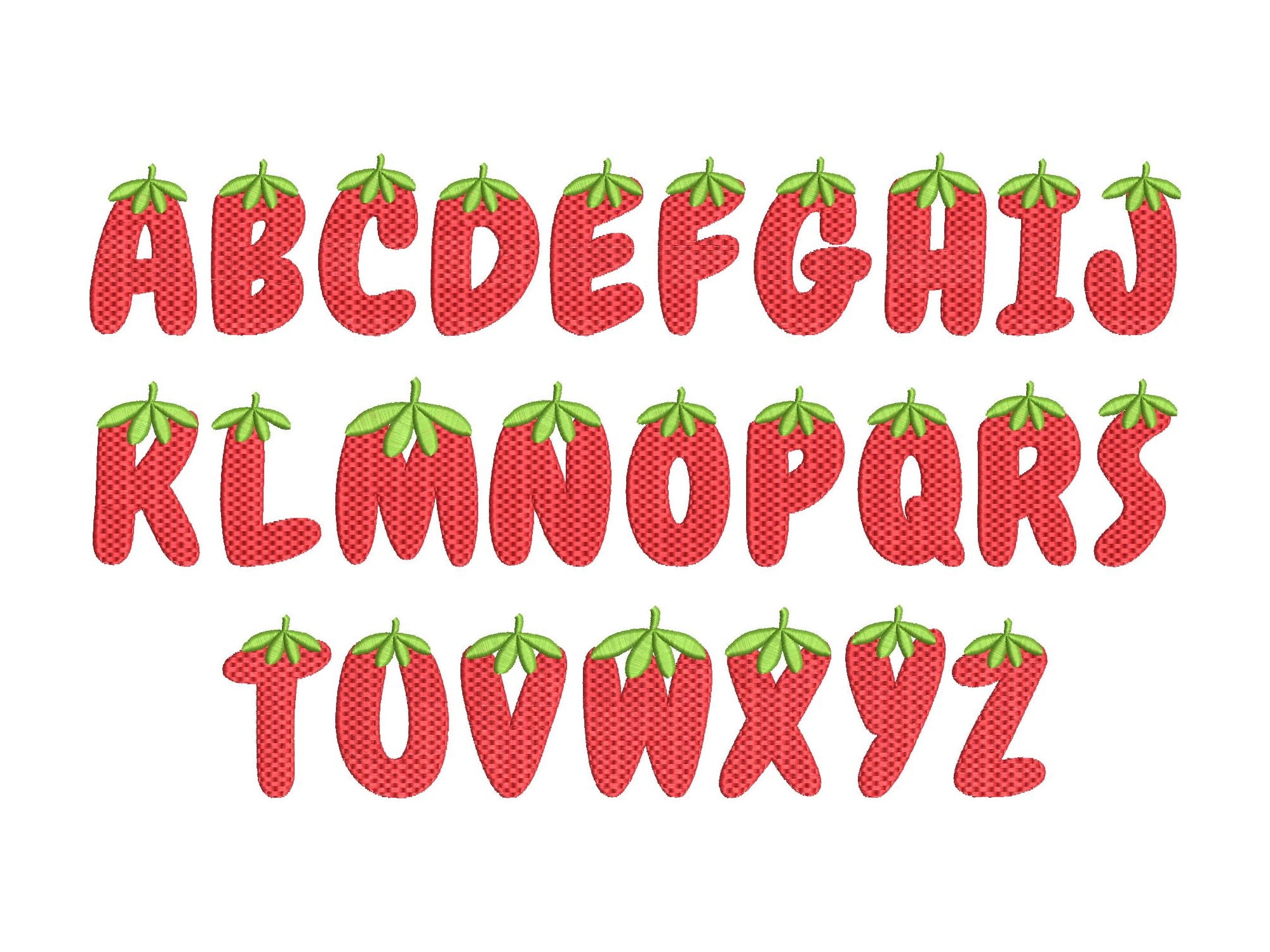
Tutti Frutti fruit FONT big SET of 4 fonts machine embroidery designs in assorted sizes funny alphabet letters A-Z kids name monogram, BX included
Included SET of 4 fonts
* plain font - capital letters A-Z and numbers 0-9
* Watermelon Font - capital letters A-Z
* Pineapple font - capital letters A-Z
* Strawberry Font - capital letters A-Z
Also, included kiwi and orange designs in assorted sizes.
You may combine letters and fruits as you please to get an awesome result!